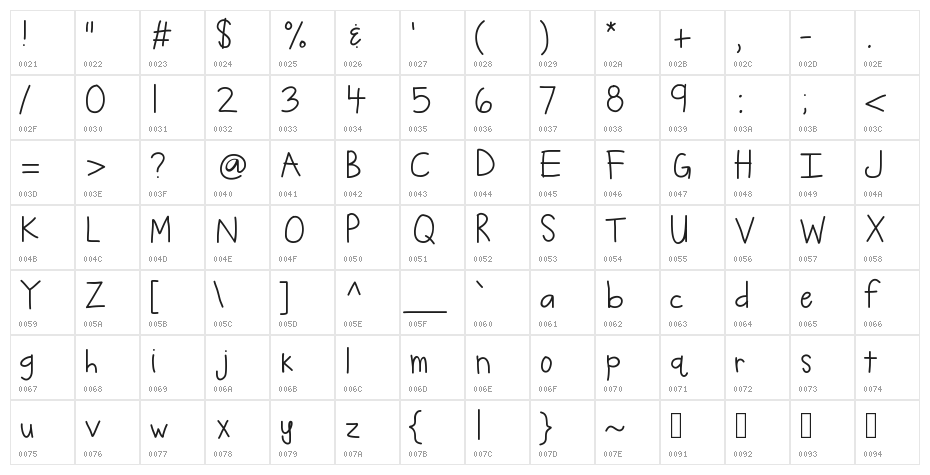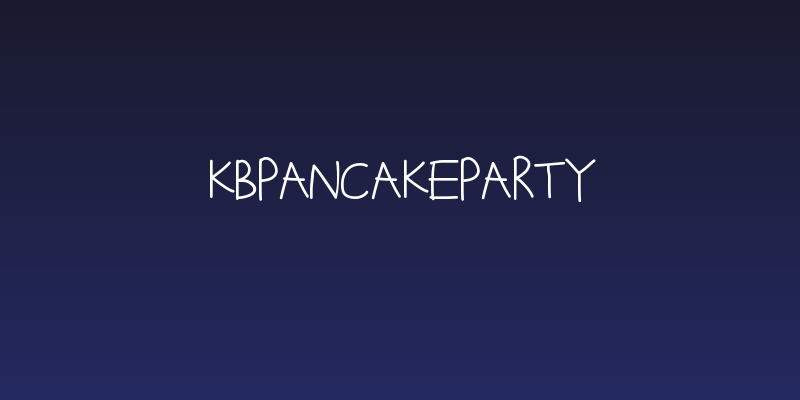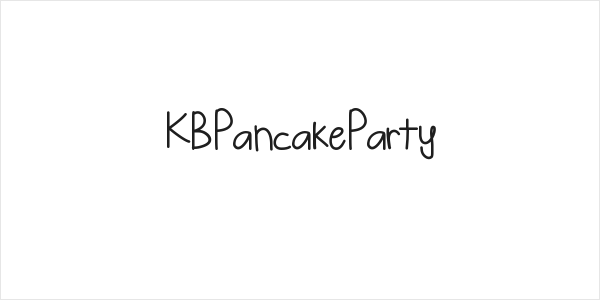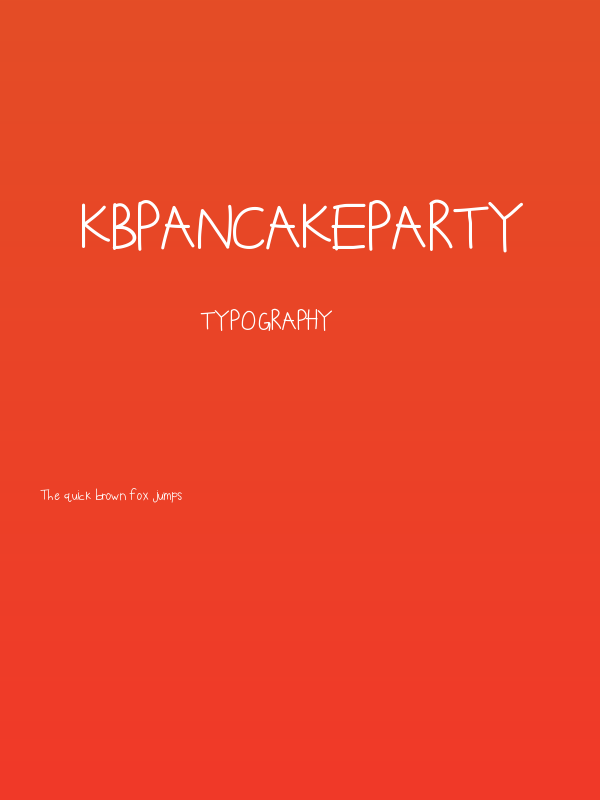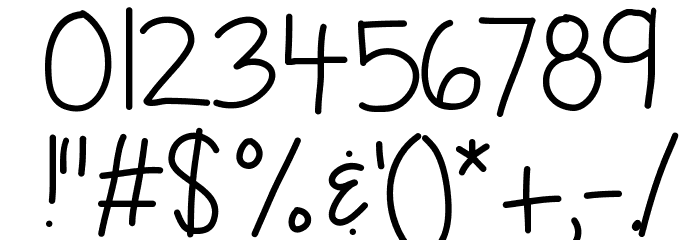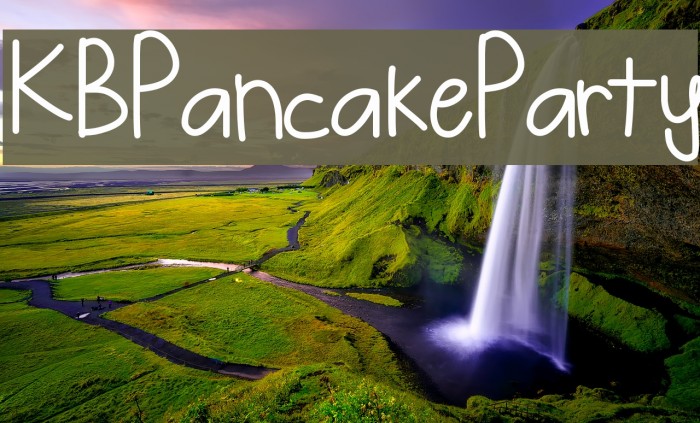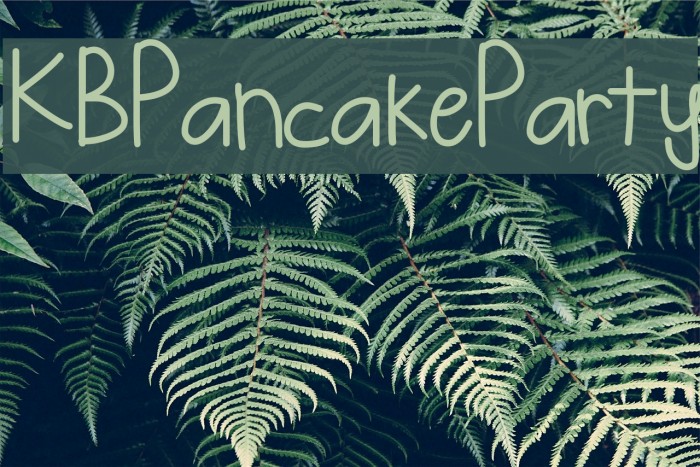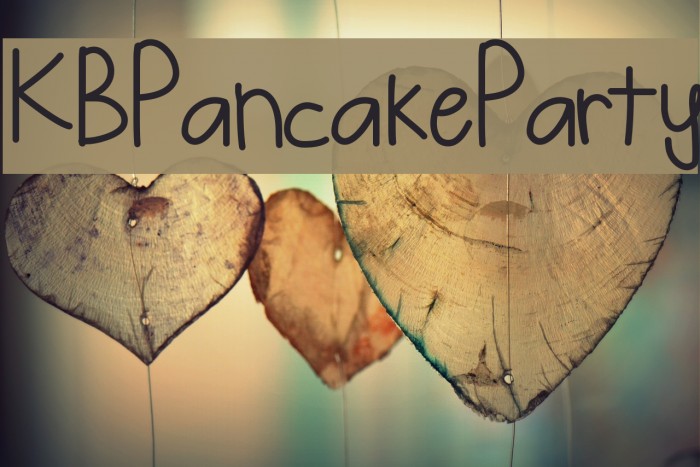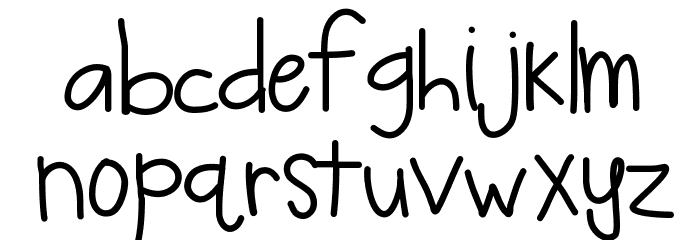
KBPancakeParty Font
KBPancakeParty Description
This playful and whimsical font features a handwritten style with a casual and friendly appearance. The characters are slightly irregular, giving it a charming, informal look. The strokes are consistent in thickness, contributing to a cohesive and balanced design. The font includes both uppercase and lowercase letters, numerals, and a variety of special characters, making it versatile for different uses. Its handwritten nature adds a personal touch, making it suitable for projects that require a warm and approachable feel.
| Proposed Projects | Ideal for greeting cards, children's books, playful branding, and social media graphics. |